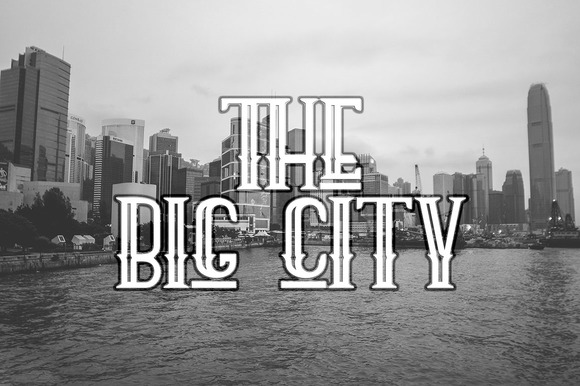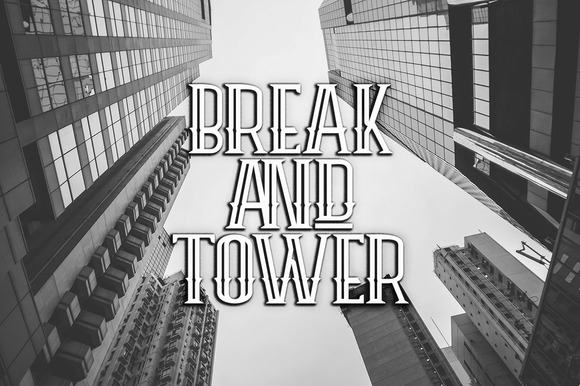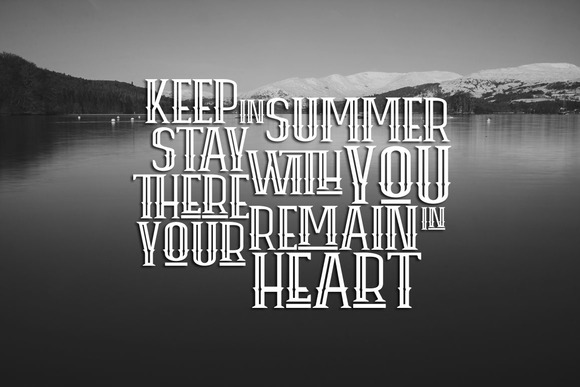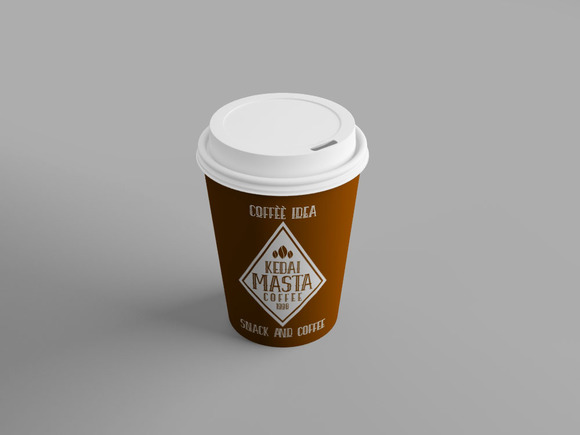
Introducing Elpida Outline Font: Elevate Your Designs with a Jaw-Droppingly Stylish Display Font
Are you on the hunt for a font that adds a touch of sophistication and edge to your designs? Look no further than Elpida Outline Font. This stunning display font is perfect for designers and crafters seeking to create visually striking projects with a neo-gothic or hipster vibe. In this article, we’ll dive into the world of Elpida Outline, exploring its features, uses, and benefits, and why it’s a must-have for your font collection.
What is Elpida Outline Font?
Elpida Outline Font is a beautifully crafted display font that boasts a unique, eye-catching design. Its elegant lines and curves make it an ideal choice for a wide range of projects, from bold headlines to eye-catching posters. With its flexible and beautiful design, Elpida Outline Font is sure to elevate your designs to the next level.
Key Features of Elpida Outline Font
- Neo-Gothic and Hipster Friendly: Elpida Outline Font is specifically designed to complement neo-gothic and hipster-inspired projects, making it perfect for designers who want to add a touch of edginess to their work.
- Flexible and Beautiful: This display font is incredibly versatile, allowing you to use it for a wide range of applications, from digital designs to print materials.
- High-Quality Design: Elpida Outline Font features a meticulously crafted design, ensuring that your text looks crisp, clear, and visually stunning.
Uses for Elpida Outline Font
Elpida Outline Font is perfect for a variety of design projects, including:
- Posters and Flyers: Add a touch of drama and elegance to your posters and flyers with Elpida Outline Font.
- Logos and Branding: Create a bold, eye-catching logo that sets your brand apart from the competition.
- Social Media Graphics: Elevate your social media presence with stunning graphics that showcase your personality and style.
- Invitations and Cards: Add a touch of sophistication to your invitations and cards with Elpida Outline Font.
Benefits of Using Elpida Outline Font
So why choose Elpida Outline Font for your design projects? Here are just a few benefits:
- Unique and Eye-Catching: Elpida Outline Font is sure to grab attention and set your designs apart from the competition.
- Versatile: This display font can be used for a wide range of projects, making it a valuable addition to your font collection.
- Easy to Read: Despite its bold design, Elpida Outline Font is surprisingly easy to read, making it perfect for use in a variety of contexts.
Tips for Using Elpida Outline Font
To get the most out of Elpida Outline Font, here are a few tips to keep in mind:
- Use it Sparingly: Elpida Outline Font is a bold, attention-grabbing font. Use it sparingly to avoid overwhelming your designs.
- Experiment with Colors: Elpida Outline Font looks stunning in a variety of colors. Experiment with different hues to find the perfect look for your project.
- Pair it with Other Fonts: Elpida Outline Font pairs beautifully with other fonts. Experiment with different combinations to find the perfect match.
In conclusion, Elpida Outline Font is a jaw-droppingly stylish display font that’s perfect for designers and crafters seeking to add a touch of sophistication and edge to their designs. With its flexible and beautiful design, Elpida Outline Font is sure to elevate your designs to the next level. Whether you’re working on a neo-gothic project, a hipster-inspired design, or simply looking for a bold, eye-catching font, Elpida Outline Font is a must-have for your font collection.